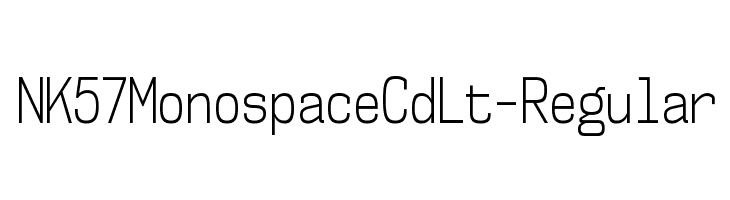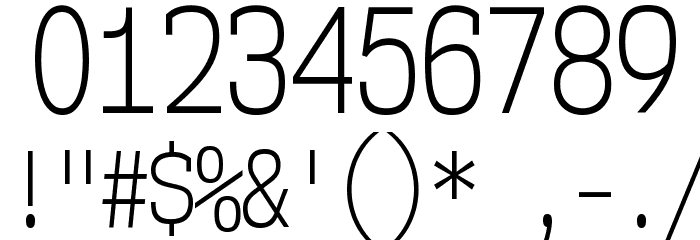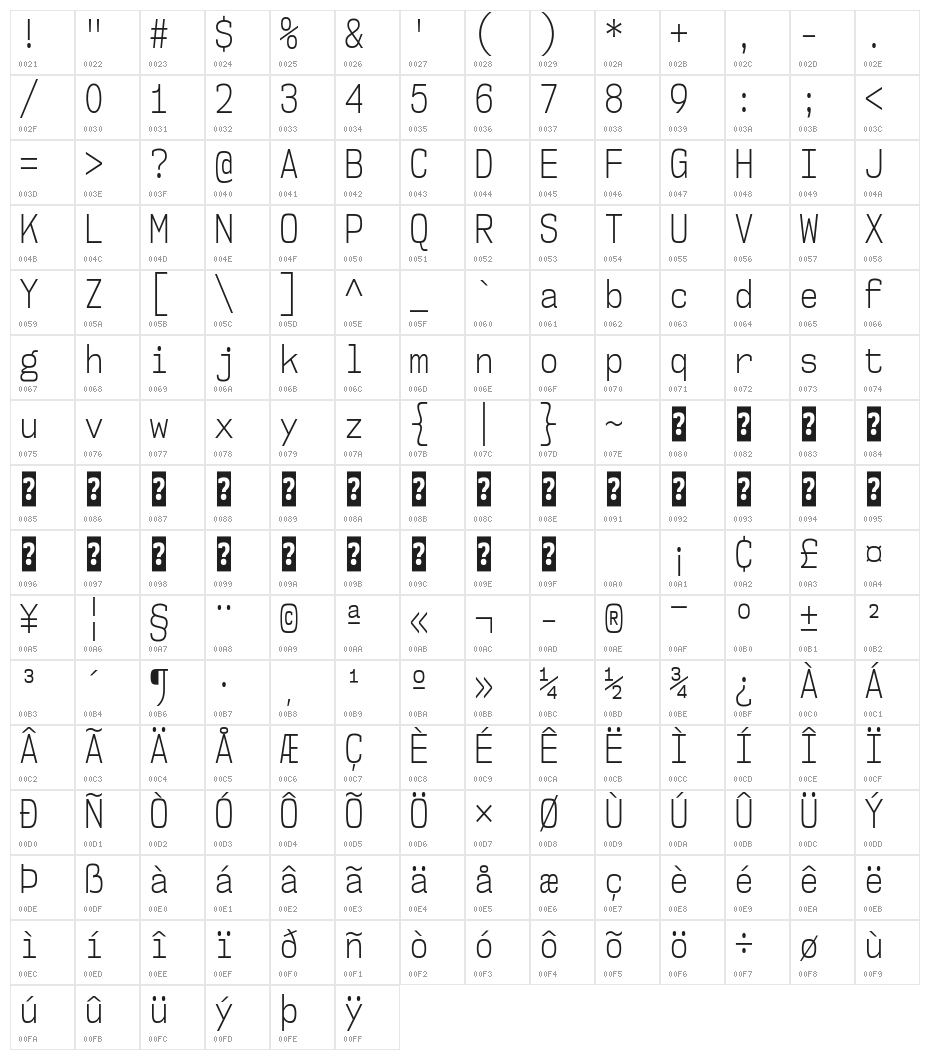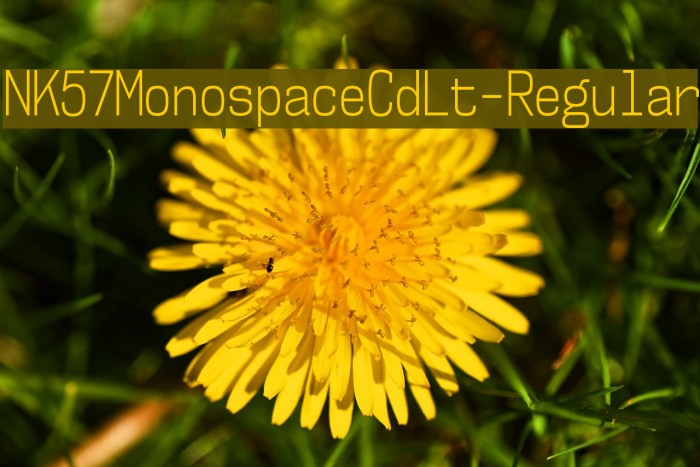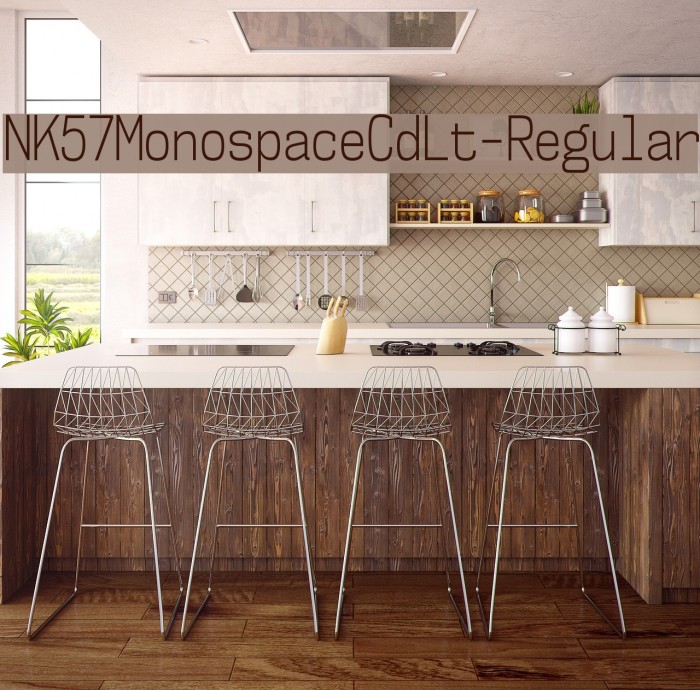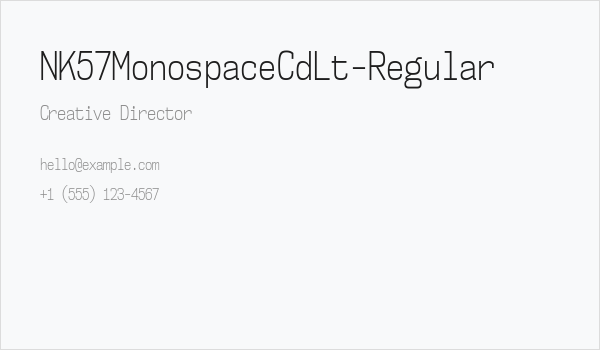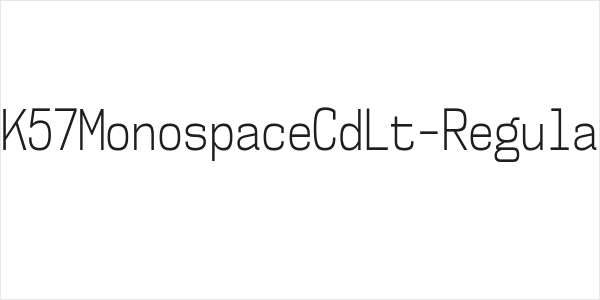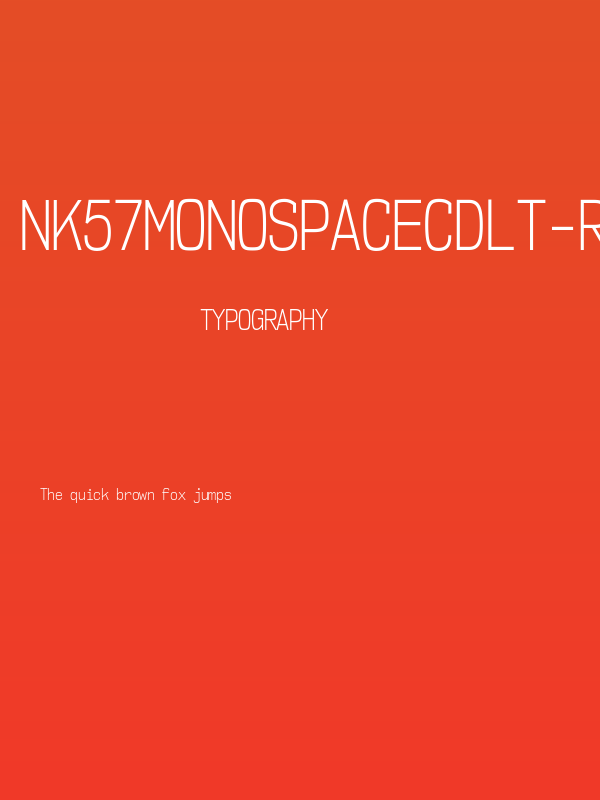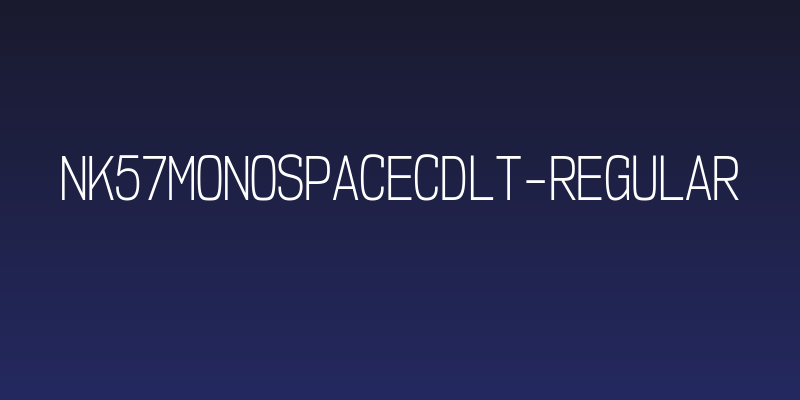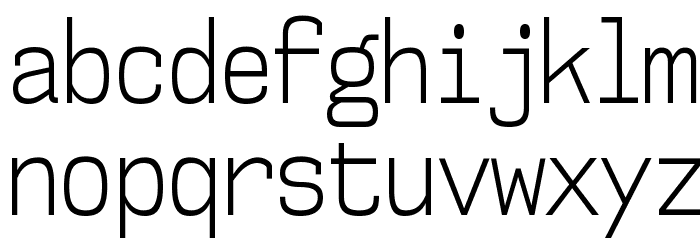
NK57MonospaceCdLt-Regular Font
NK57MonospaceCdLt-Regular Description
This font features a clean and modern design with a monospaced structure, ensuring each character occupies the same amount of horizontal space. Its geometric shapes and uniform stroke widths contribute to a highly legible and orderly appearance. The font's condensed form allows for efficient use of space, making it suitable for environments where clarity and precision are paramount. The characters are well-balanced, with a consistent height and width that enhance readability. Its minimalist aesthetic is ideal for technical and professional applications, providing a sleek and contemporary look.
| Use Case | Coding, Technical documents, Data tables |
| Proposed Projects | Ideal for coding environments, technical documents, data tables, and minimalist design projects. |